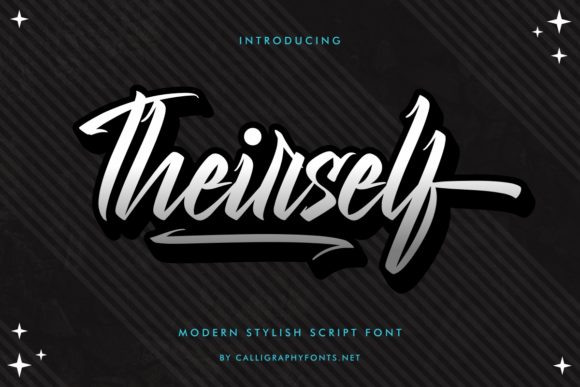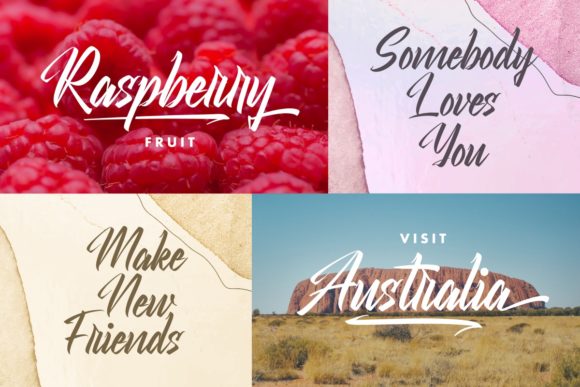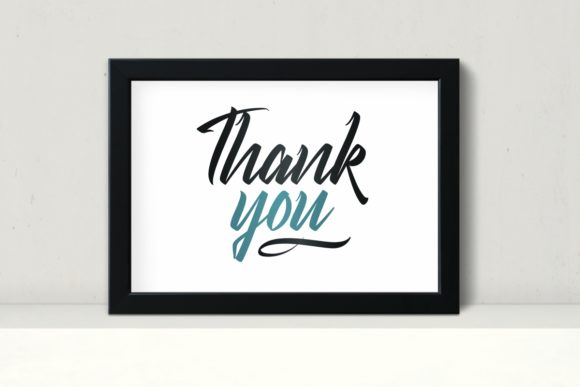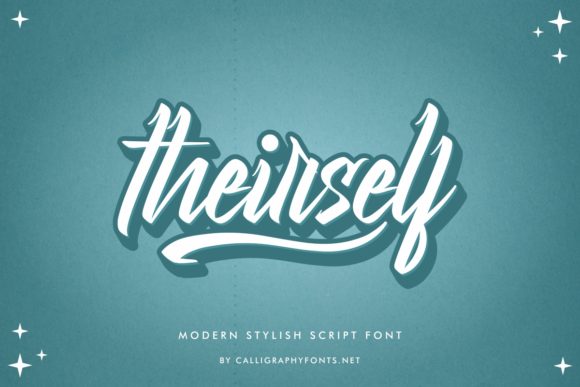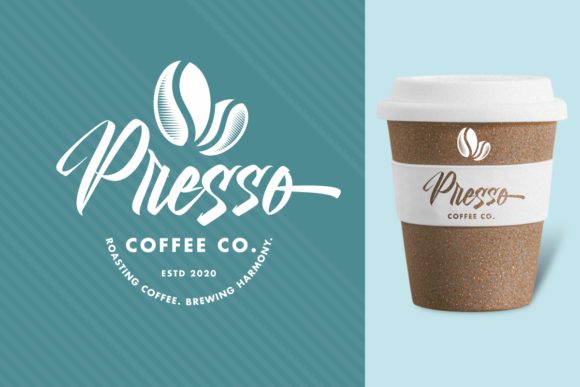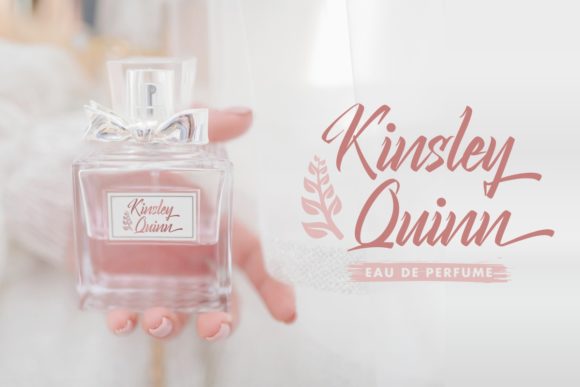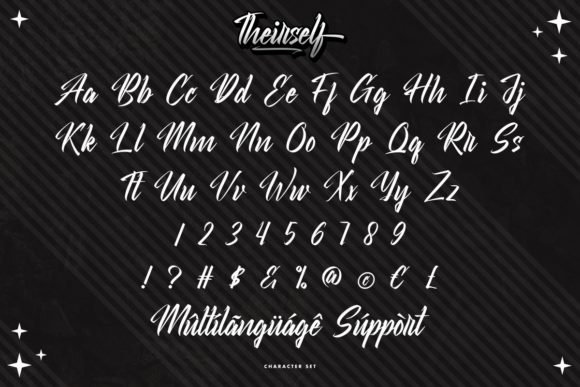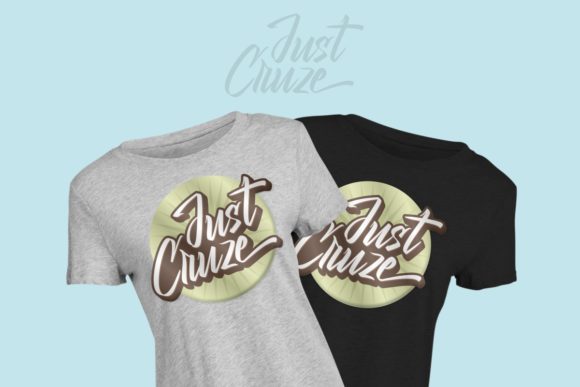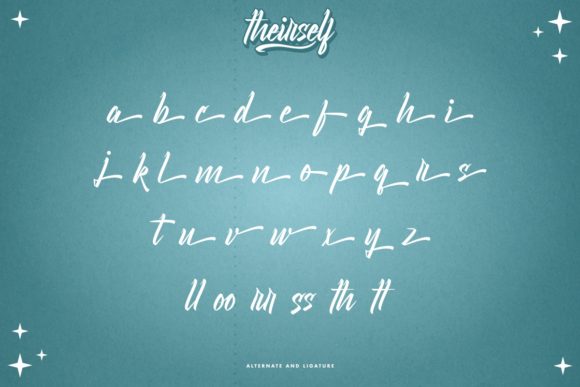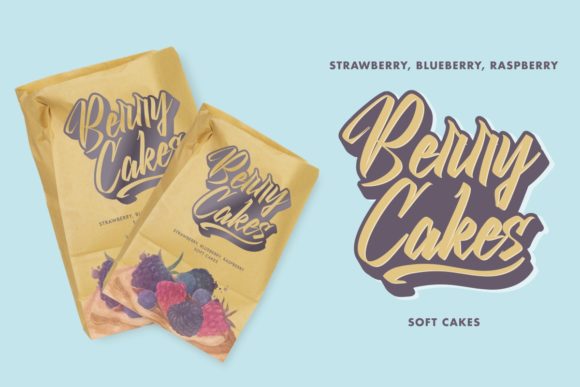
Theirself Font
About Theirself Font
Theirself is a contemporary and daring script font that exudes modernity and style. With its strong and confident appearance, this font is perfect for adding an elegant and distinctive touch to your designs.
One of the standout features of Theirself is its bold and dynamic letterforms. The font carries an air of confidence and sophistication, making it an ideal choice for projects that aim to make a statement. Whether you’re designing logos, branding materials, posters, or social media graphics, Theirself can add a touch of elegance and character that commands attention.
With PUA encoding, accessing the various glyphs and swashes in Theirself is made easy. PUA (Private Use Area) encoding allows you to access and utilize special characters, alternate letterforms, and decorative swashes, giving you even more creative freedom to customize and personalize your designs.
The clean and precise lines of Theirself contribute to its modern and stylish aesthetic. Each letter is carefully crafted to ensure legibility while maintaining a sense of elegance and uniqueness. This attention to detail makes Theirself a versatile font that can be used for a wide range of design projects, from fashion and beauty branding to editorial layouts and website designs.
Whether you’re looking to create bold headlines, eye-catching logos, or sleek and contemporary branding materials, Theirself is a font that can add a touch of elegance and character to your designs. Its modern, stylish, and daring nature makes it a go-to choice for those seeking a strong and confident aesthetic.
In summary, Theirself is a modern and daring script font that brings style and character to your designs. With its bold letterforms, PUA encoding for easy access to glyphs and swashes, and a strong and confident aesthetic, it is perfect for projects that require an elegant and contemporary touch. Let Theirself elevate your designs and make a bold statement in your creative endeavors.